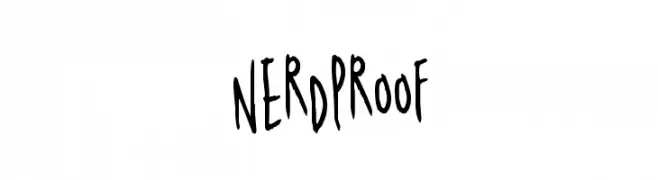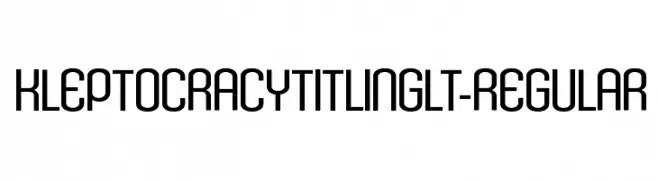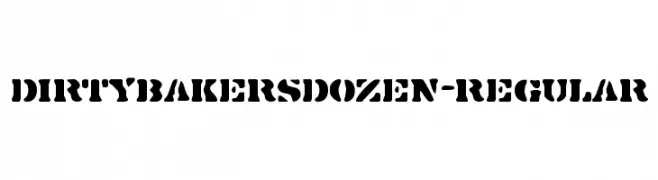
( Fonts by Jacob Fisher - www.pizzadude.dk )
A playful, handwritten font with irregular strokes and a casual vibe.
( Typodermic Fonts - Ray Larabie - www.typodermicfonts.com/ )
A modern, geometric font with clean lines and uniform stroke width.
( Fonts by Simone Guggiari )
A playful, hand-drawn font with a chalkboard style, enclosed in squares.
A modern, clean sans-serif font with uniform strokes and balanced proportions.
( Fonts by Raihana Orked )
A bold, hand-drawn font with a scribbled texture, perfect for playful and creative designs.
( Amar Lettering - creativemarket.com/Amarlettering )
An elegant script font with flowing, cursive letters and a sophisticated style.
( Fonts by www.typodermicfonts.com - Ray Larabie )
A bold, stencil-style font with a rugged, industrial look.